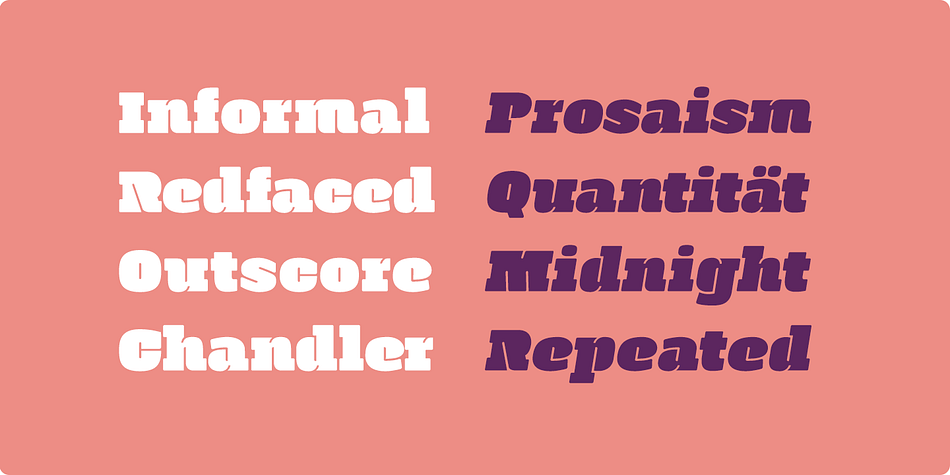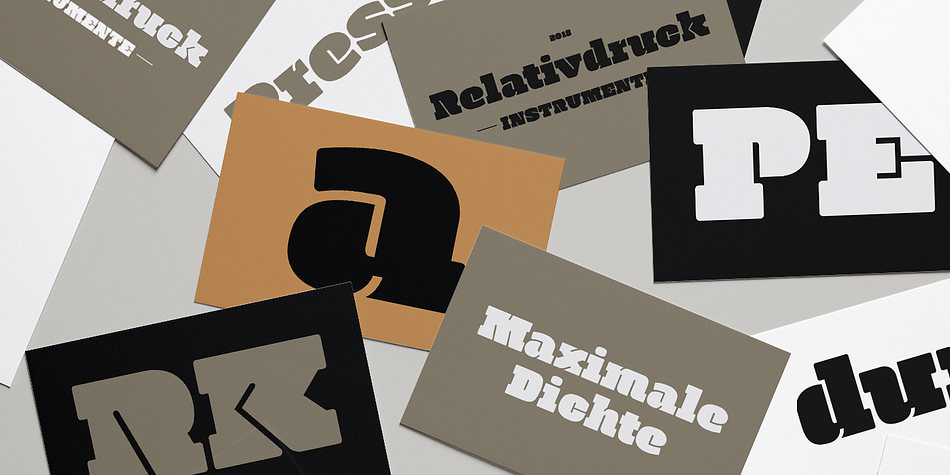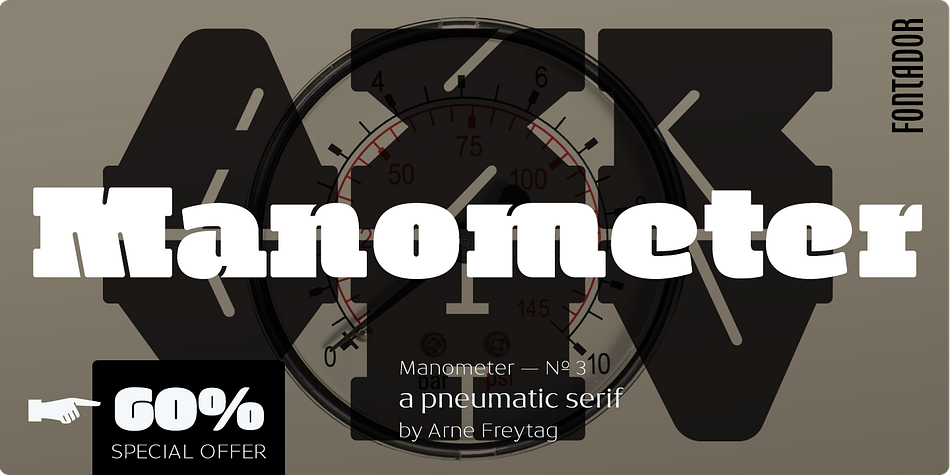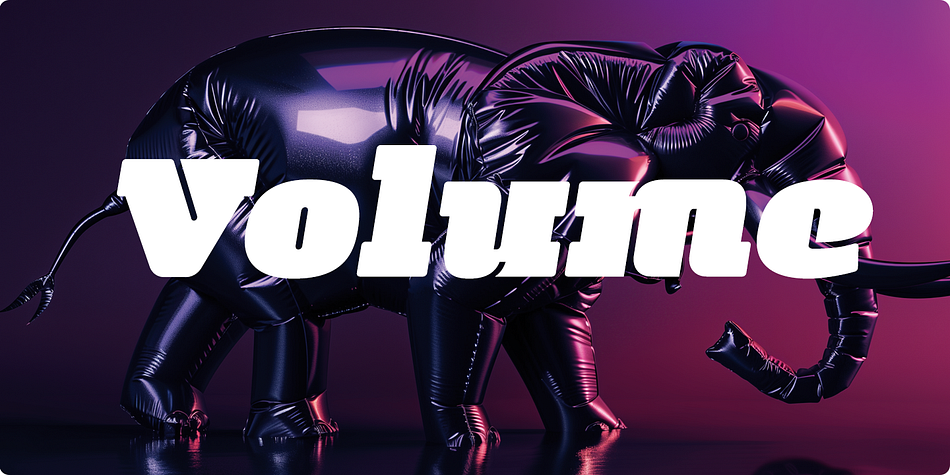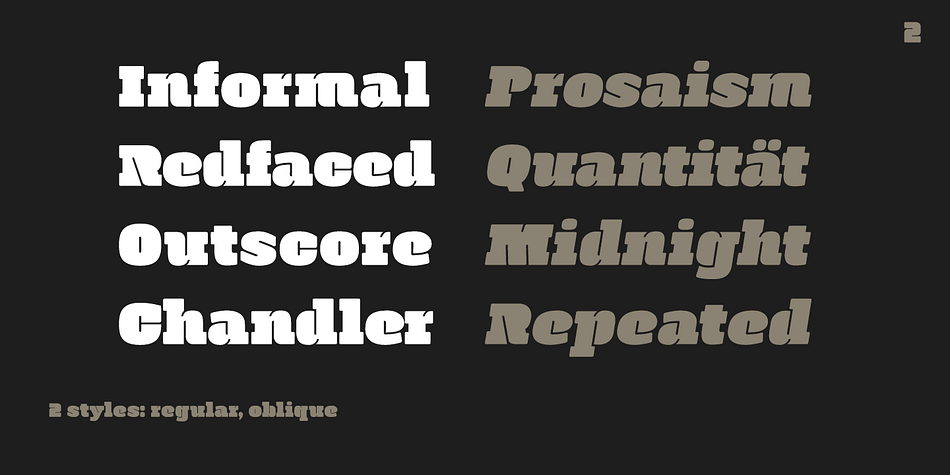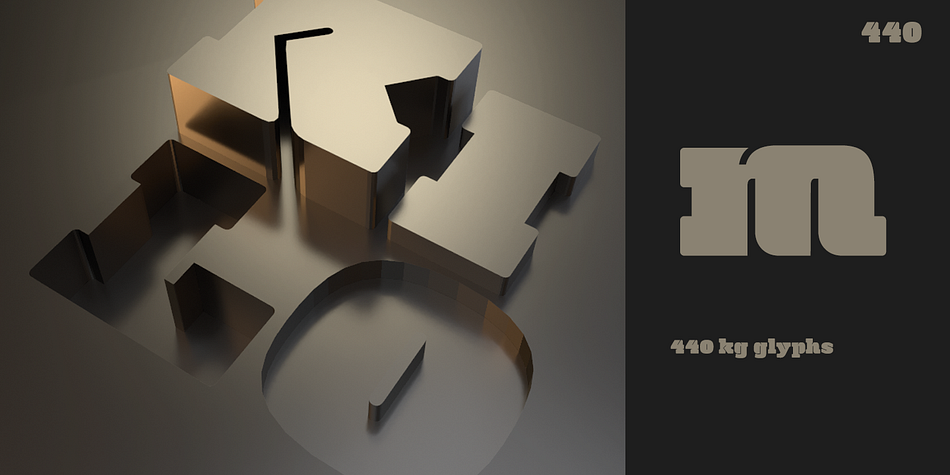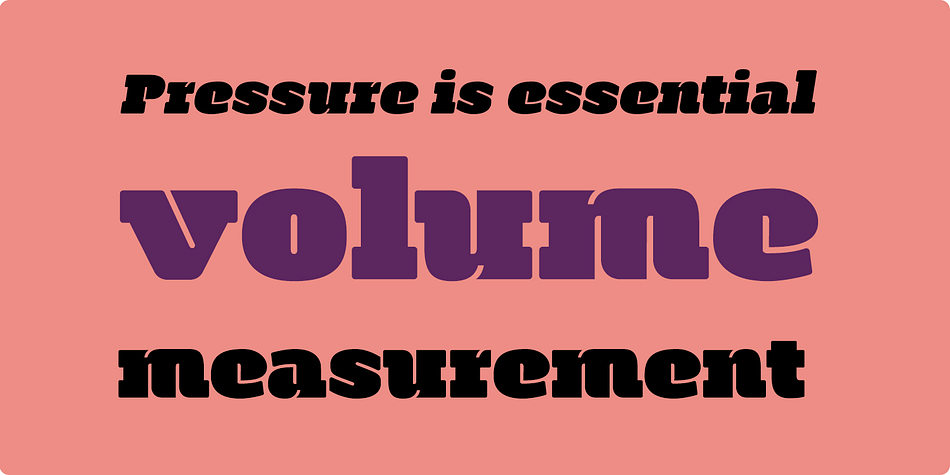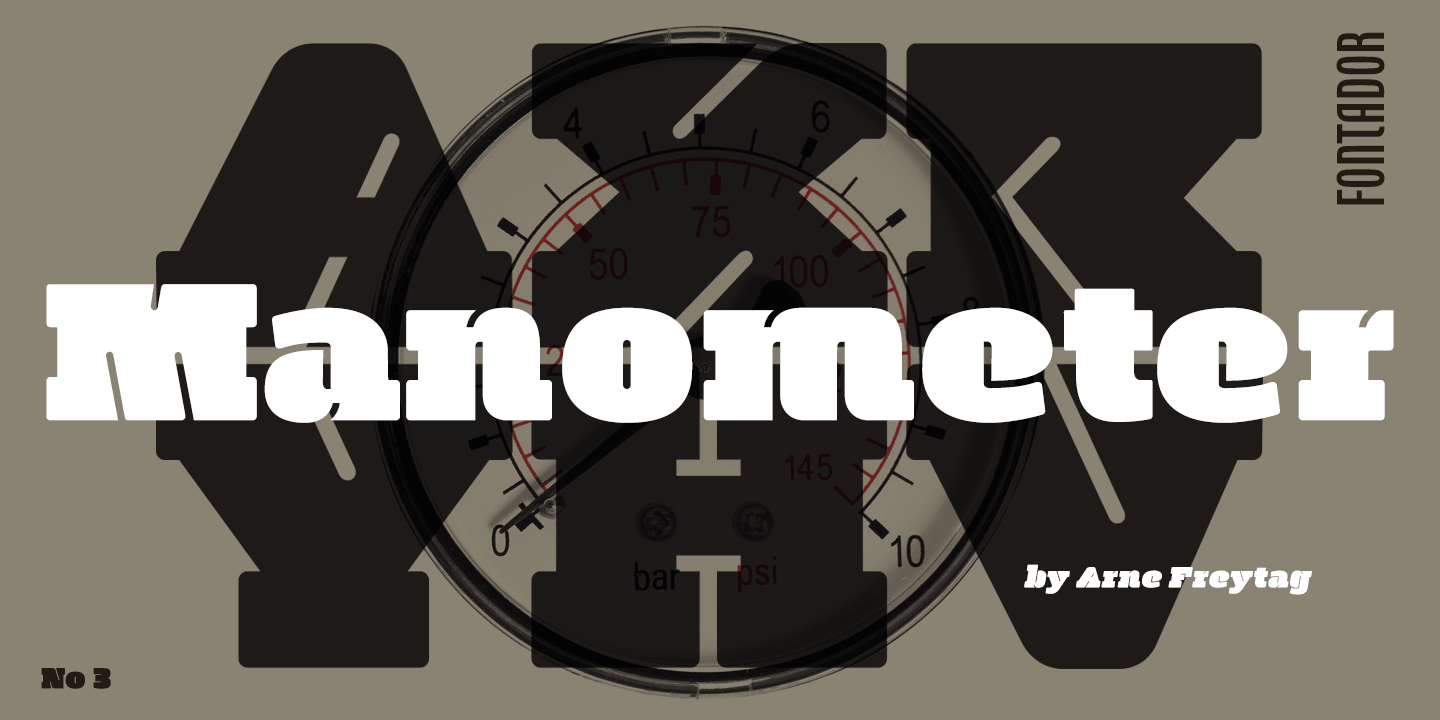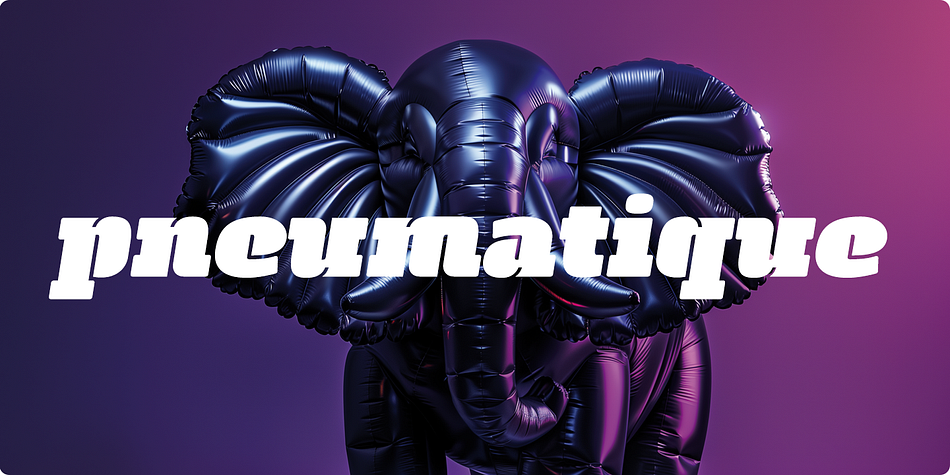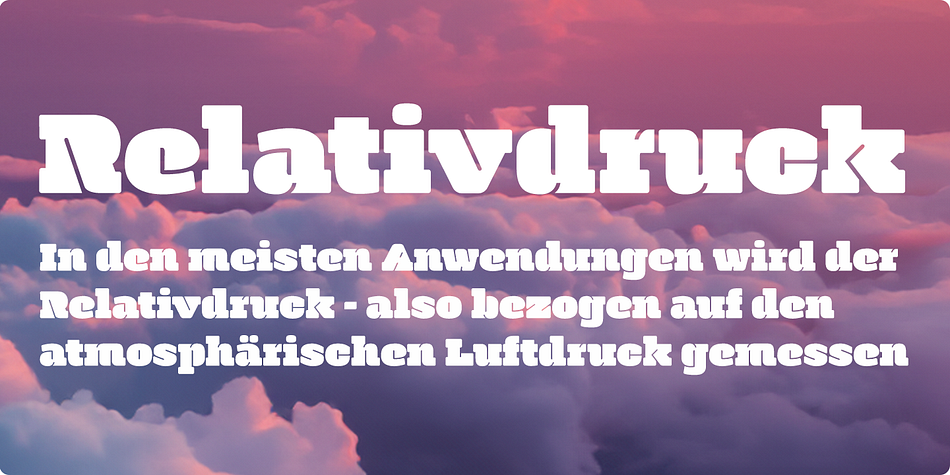
Designed by Arne Freytag, Manometer is a display slab font family. This typeface has two styles and was published by Fontador.
Manometer is a pneumatic ultra-black slab serif typeface with soft corners and fine counters.
Style | Display Slab |
Designer | Arne Freytag |